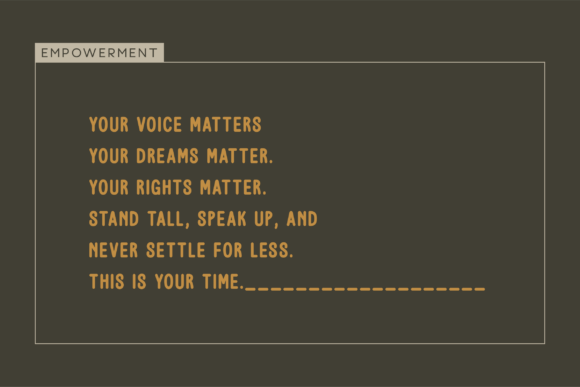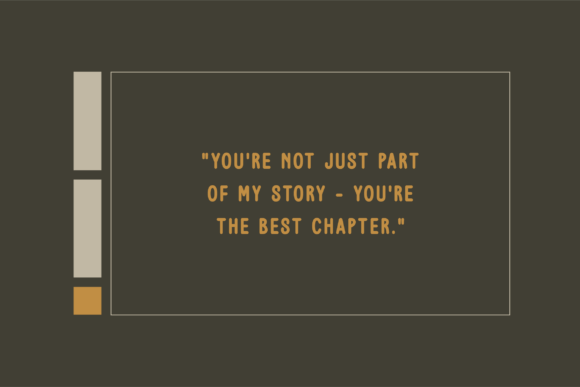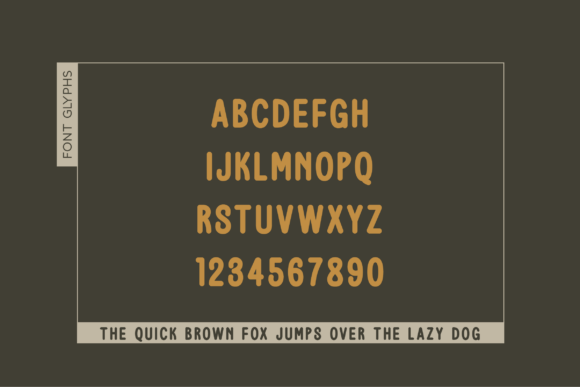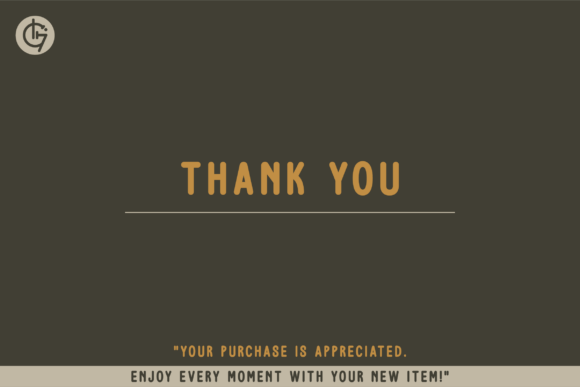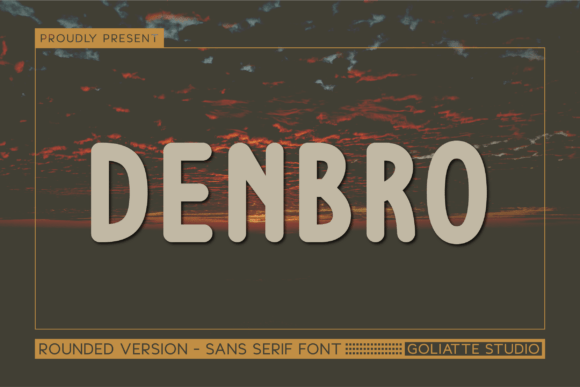
Unleash Your Creativity with Denbro Font: A Playful and Whimsical All-Caps Font
Are you a designer, crafter, or social media enthusiast looking for a font that can add a touch of personality and whimsy to your projects? Look no further than Denbro Font, an all-caps font that exudes playful charm and creativity in every stroke. In this article, we’ll explore the features and benefits of Denbro Font, and how it can elevate your designs and help you unleash your artistic spark.
What is Denbro Font?
Denbro Font is a carefully crafted all-caps font that consists of capital letters A-Z, numbers 0-9, punctuations, and accented characters. Its simplistic yet smooth design makes it perfect for a wide range of creative projects, from social media posts and t-shirts to decals and cards. Whether you’re a professional designer or a DIY crafter, Denbro Font is an excellent choice for anyone looking to add a touch of personality and style to their work.
The Features of Denbro Font
So, what makes Denbro Font so special? Here are just a few of its key features:
- All-caps design: Denbro Font is an all-caps font, which means it’s perfect for creating bold and eye-catching designs that demand attention.
- Wide range of characters: Denbro Font includes capital letters A-Z, numbers 0-9, punctuations, and accented characters, giving you the flexibility to create a wide range of designs.
- Simplistic yet smooth design: Denbro Font has a smooth and simplistic design that makes it easy to read and use in a variety of contexts.
- Playful and whimsical: Denbro Font has a playful and whimsical feel that’s perfect for designers and crafters who want to add a touch of personality to their work.
How to Use Denbro Font
Denbro Font is incredibly versatile and can be used in a wide range of creative projects. Here are just a few ideas to get you started:
- Social media posts: Add a splash of personality to your social media posts with Denbro Font. Use it to create eye-catching graphics, quotes, and promotions that will help you stand out from the crowd.
- T-shirts and apparel: Denbro Font is perfect for designing t-shirts, hoodies, and other apparel. Its bold and playful design makes it easy to read and wear.
- Decals and stickers: Create custom decals and stickers with Denbro Font. Its smooth design makes it perfect for use on laptops, water bottles, and other surfaces.
- Cards and invitations: Add a touch of whimsy to your cards and invitations with Denbro Font. Use it to create custom designs for birthdays, weddings, and other special occasions.
Why Choose Denbro Font?
So, why should you choose Denbro Font for your next creative project? Here are just a few reasons:
- Unique and playful design: Denbro Font has a unique and playful design that’s sure to add a touch of personality to your work.
- Easily readable: Denbro Font is easy to read, even at small sizes, making it perfect for use in a variety of contexts.
- Flexible and versatile: Denbro Font can be used in a wide range of creative projects, from social media posts to t-shirts and decals.
- High-quality design: Denbro Font is a high-quality font that’s been carefully crafted to ensure smooth and clear lines.
In conclusion, Denbro Font is a playful and whimsical all-caps font that’s perfect for designers, crafters, and social media enthusiasts. Its unique and smooth design makes it easy to read and use in a variety of contexts, and its wide range of characters gives you the flexibility to create a wide range of designs. Whether you’re looking to add a splash of personality to your social media posts or design custom t-shirts and decals, Denbro Font is an excellent choice. So why not give it a try and see how it can help you unleash your creative spark?
With Denbro Font, you can:
- Easily add a touch of personality to your designs
- Create bold and eye-catching graphics
- Enhance your social media presence
- Design custom apparel, decals, and cards